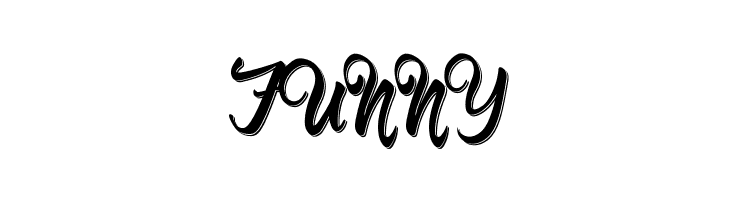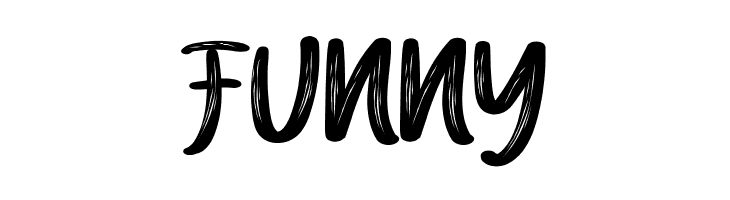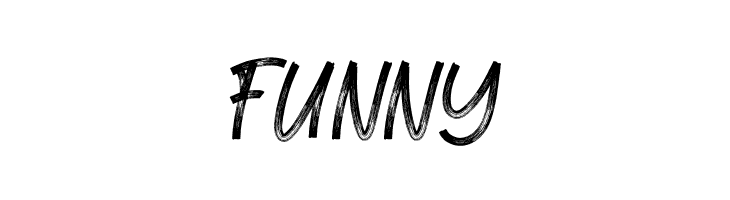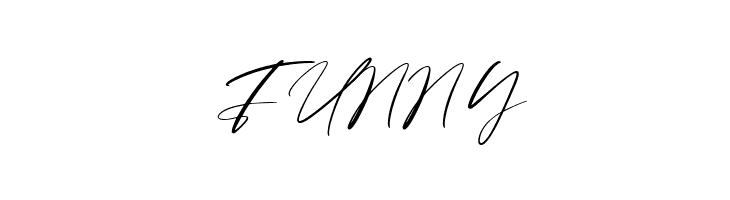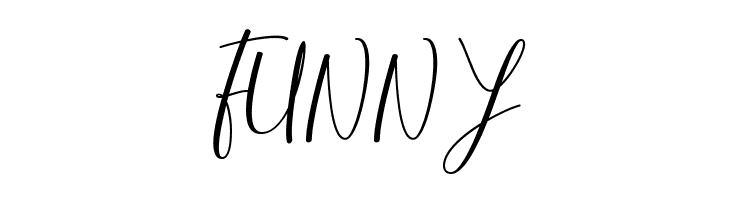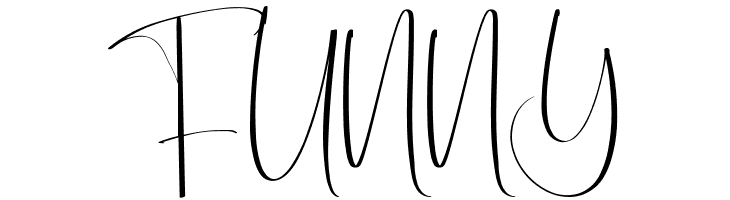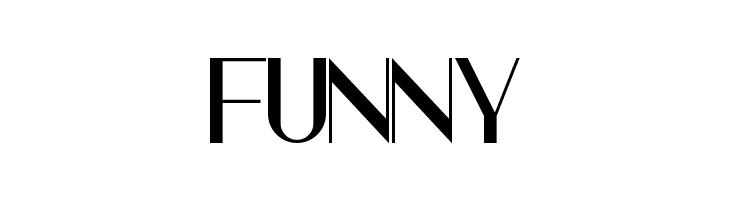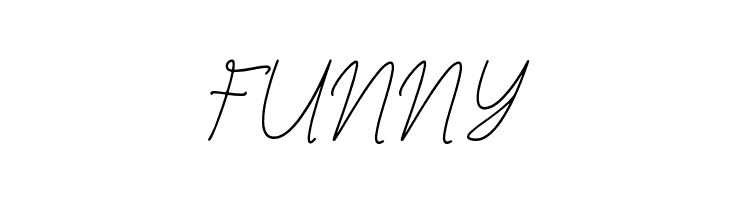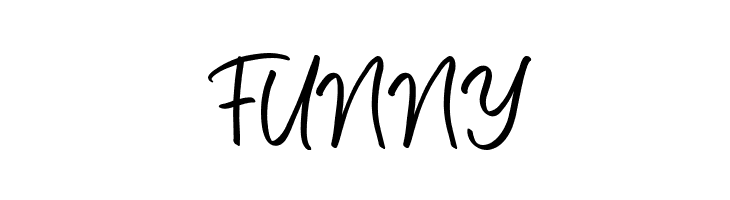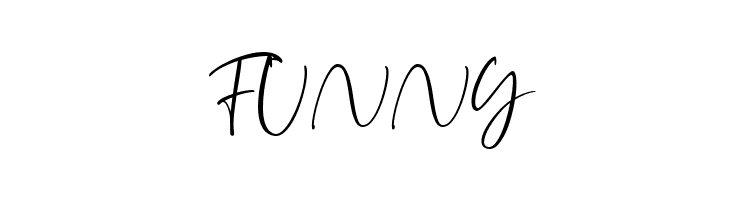
A bold, expressive handwritten font with dynamic strokes and textured appearance.
A bold, handwritten font with dynamic, sweeping strokes and a textured, artistic feel.
An elegant cursive script font with flowing lines and intricate details.
A graceful and flowing script font with a handwritten appearance.
A modern, elegant handwritten font with flowing, cursive characters.
An elegant, flowing script font with graceful curves and interconnected letters.
An elegant, cursive font with graceful, flowing strokes.
A modern, elegant script font with flowing, handwritten characteristics.
A flowing, cursive font with elegant, sweeping curves and a sophisticated style.
A flowing, elegant cursive font with interconnected letters and moderate spacing.
A modern, elegant font with high contrast and sophisticated flair.
An elegant and sophisticated cursive font with fluid, graceful strokes.
A fluid and elegant handwritten script with connected strokes and a natural flow.
A flowing, cursive font with elegant, connected strokes.
A flowing, elegant script font with a sophisticated handwritten style.
A flowing, cursive script with elegant, handwritten characteristics.
A dynamic, cursive script font with a flowing, handwritten style.
A modern, elegant script font with flowing, cursive letters and intricate swashes.
A graceful and elegant script font with fluid, cursive strokes.
A sophisticated and elegant handwritten script with fluid, graceful letterforms.
A flowing, handwritten font with a casual elegance.
An elegant script font with graceful, flowing lines and delicate curves.
An elegant, flowing script font with graceful loops and swashes.
A casual, elegant handwritten font with fluid, connected letterforms.
A modern, geometric sans-serif font with clean lines and a professional look.
A bold, distressed font with a vintage, grunge aesthetic.
A bold serif font with high contrast and strong, elegant serifs.
A bold, elegant serif font with high contrast and classic styling.
A bold, rounded font with a modern and approachable style.
A thin, elegant font with elongated strokes and a whimsical touch.
A bold, 3D font with strong outlines and shadow effects, ideal for impactful designs.
A bold, cursive font with decorative loops and high contrast, perfect for eye-catching designs.
A bold, futuristic font with angular, geometric shapes and a modern aesthetic.
A bold, oblique font with a futuristic and dynamic style.